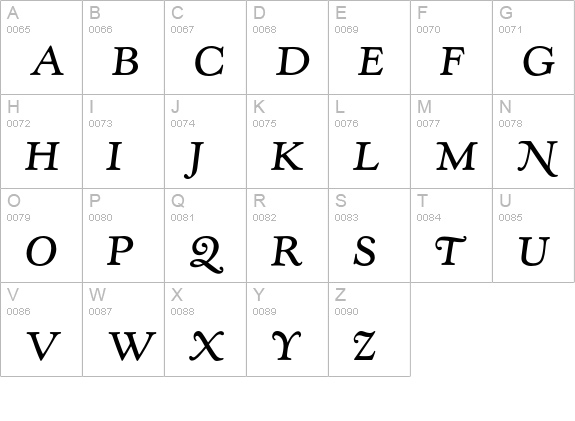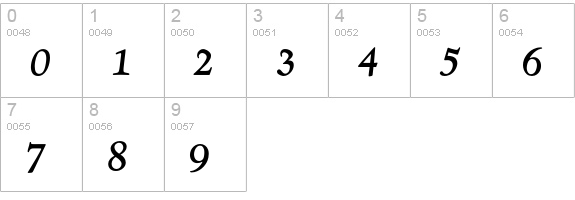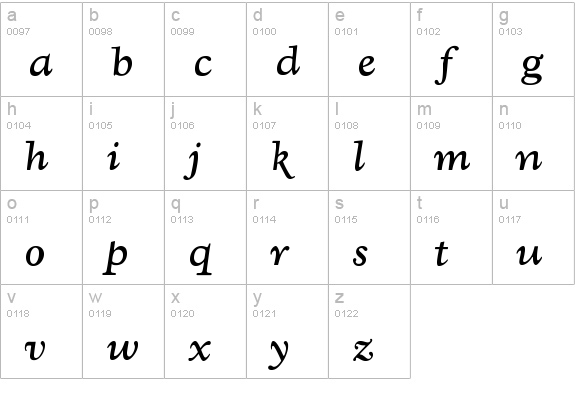
Kennerley Old Style Medium Italic Font Details
Kennerley Old Style Medium Italic is a balanced, medium-weight, italic variant in the Kennerley typeface family \xE2\x80\x94 well suited to sub-headlines, navigation, and balanced editorial work.
Kennerley Old Style Medium Italic font is a timeless and elegant typeface that exudes sophistication and refinement. With its graceful curves and delicate slant, this font adds a touch of class to any design project. The medium weight of Kennerley Old Style Medium Italic strikes the perfect balance between boldness and subtlety, making it versatile and suitable for a wide range of applications. Whether used in headings, body text, or even as a stylish accent, this font effortlessly captures attention and conveys a sense of professionalism. One of the most remarkable features of Kennerley Old Style Medium Italic is that it is freely available to download at FontsMarket.com. This means that designers, creatives, and enthusiasts can access this stunning typeface without any cost, allowing them to elevate their designs without breaking the bank. The legibility of Kennerley Old Style Medium Italic is exceptional, making it an excellent choice for both print and digital projects. Its clean lines and distinctive letterforms ensure clear communication of the intended message, while its italic styling adds a touch of flair and personality. Whether used in branding, advertising, editorial design, or any other creative endeavor, Kennerley Old Style Medium Italic font brings a touch of timeless elegance that elevates any project to new heights. Its versatility, combined with its freely available nature, makes it an invaluable asset for designers looking to create visually stunning and impactful designs.